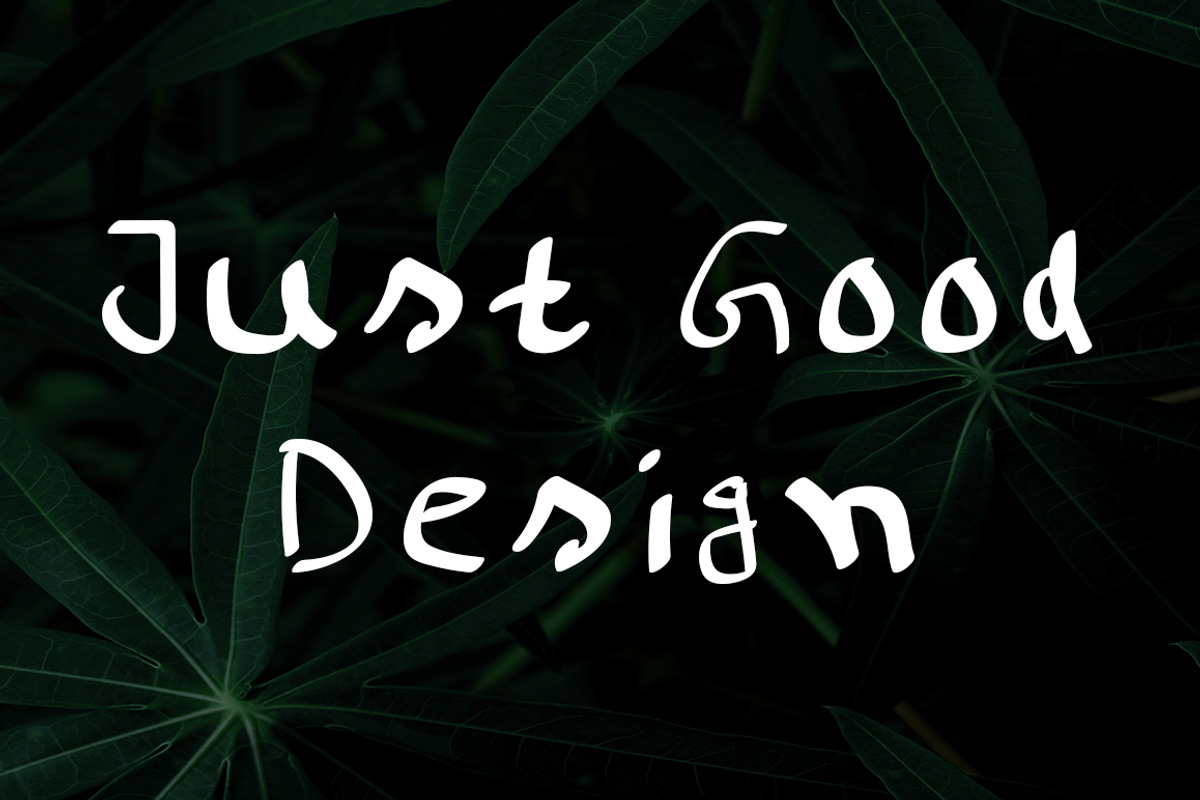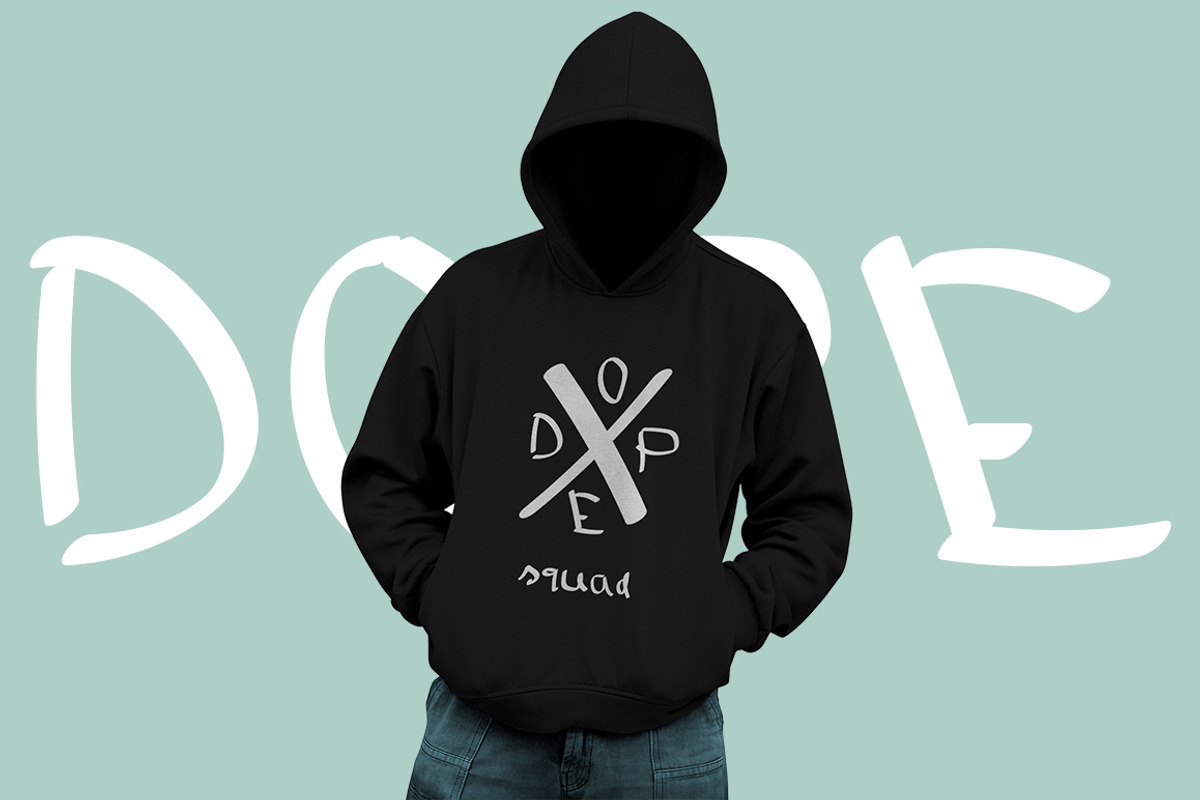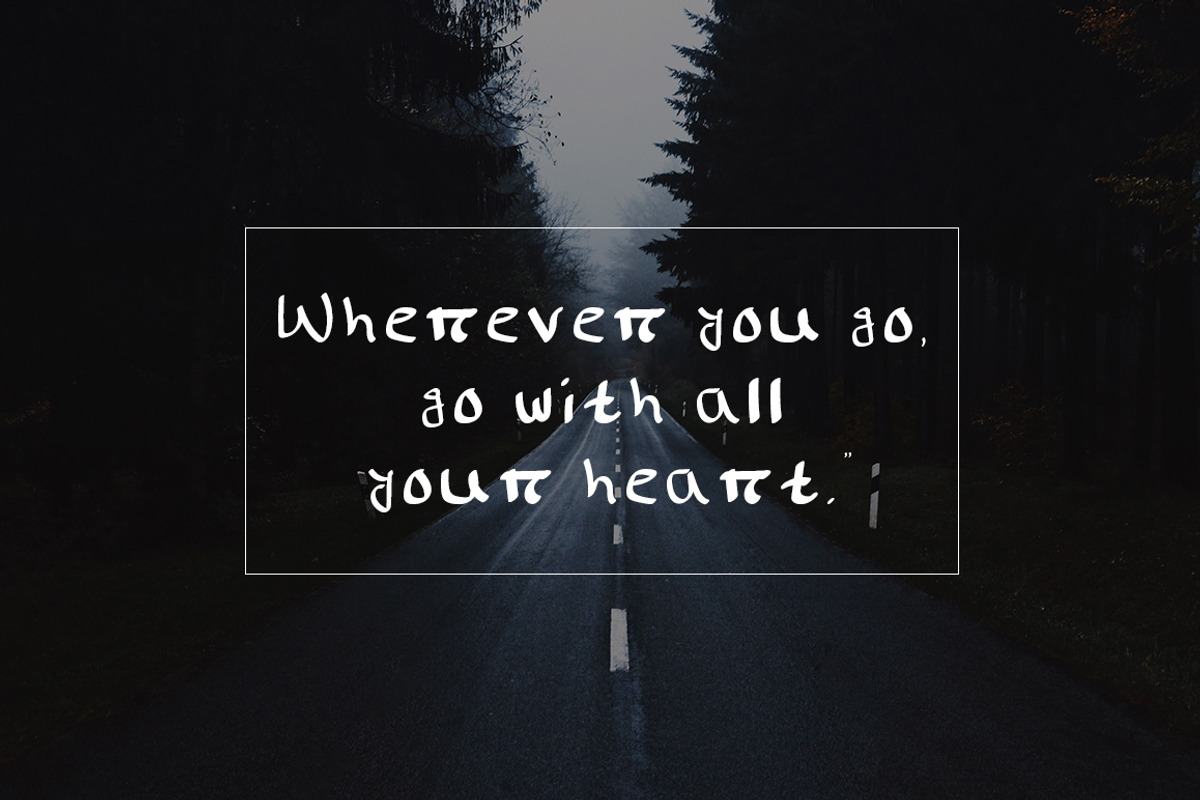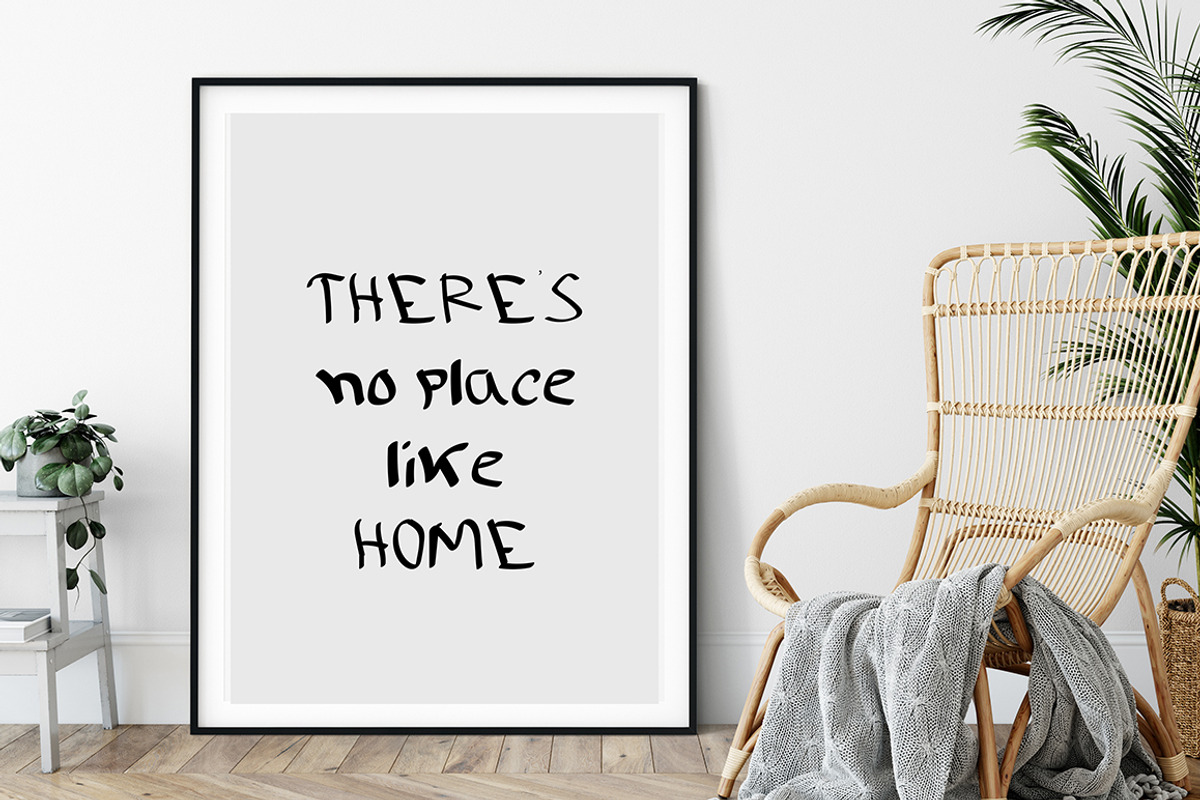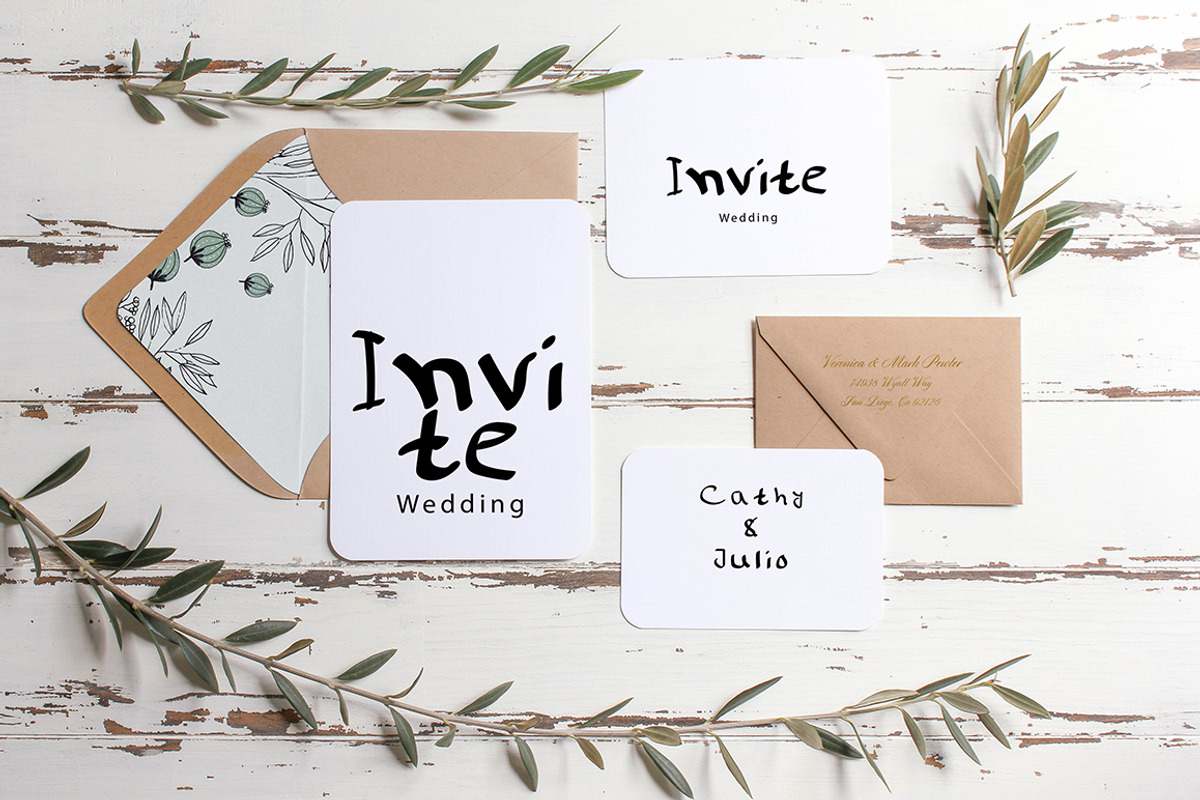
Willow Handwritten Font
Introducing Willow; An authentic & organic hand-drawn display font, crafted using real brushes. This font has been carefully designed to re-create natural handwritten text and includes custom lettering to achieve those free-flowing brush strokes. Willow lends itself perfectly to handwritten quotes, signature-style logos, stylish branding projects, and hand-crafted product & stationery designs.
- This font has been carefully designed to re-create natural handwritten text and includes custom lettering to achieve those free-flowing brus
- Numerals & Punctuation